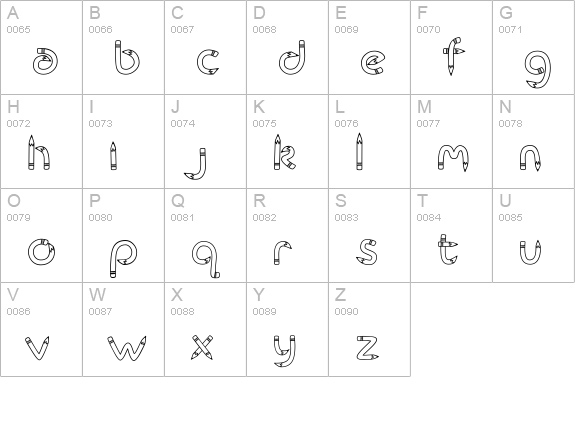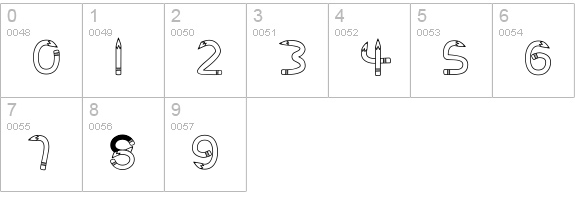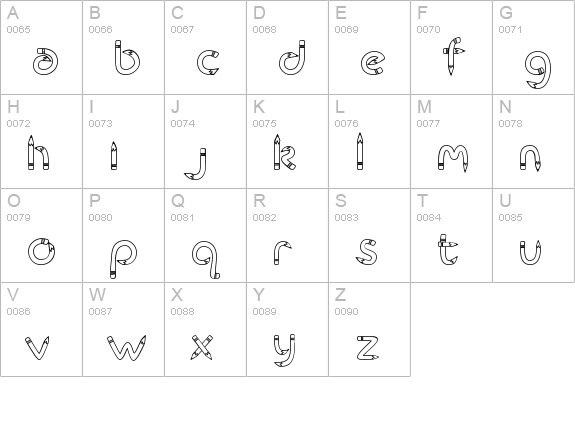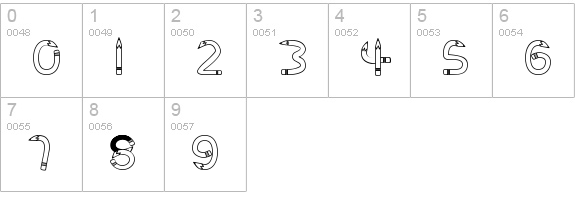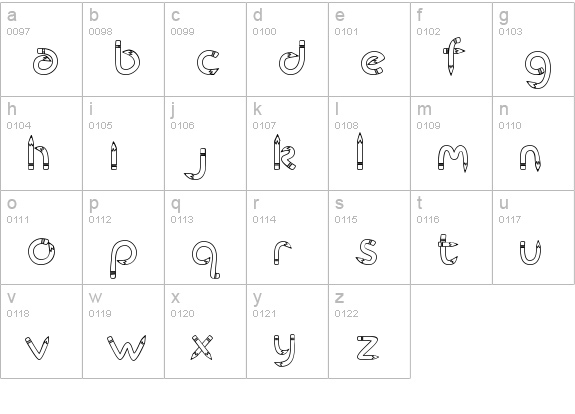
CK Rubber Pencil Font Details
Introducing CK Rubber Pencil font, a modern and playful typeface that truly stands out. This unique font features a quirky rubbery texture that adds a fun and whimsical touch to any design project. Perfect for adding a touch of creativity to logos, posters, branding materials, and more, CK Rubber Pencil font is sure to make your designs pop. Best of all, CK Rubber Pencil font is available for free download at FontsMarket.com. So whether you're a designer looking to add a unique flair to your projects or simply someone who appreciates good typography, this font is a must-have in your collection. Don't miss out on the opportunity to get your hands on this one-of-a-kind font for free, and start creating eye-catching designs today with CK Rubber Pencil font.